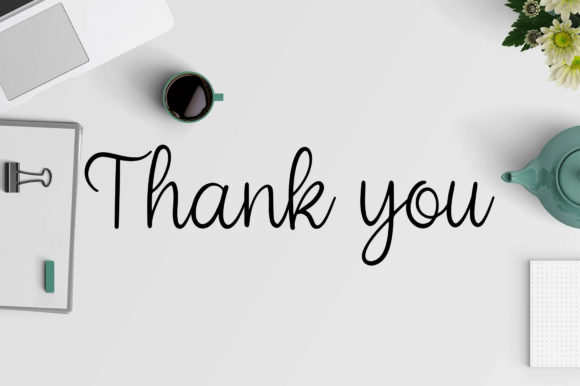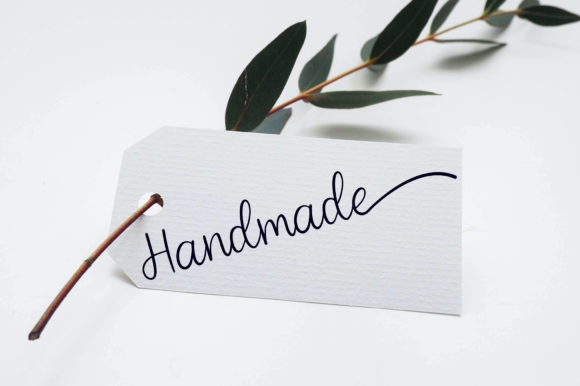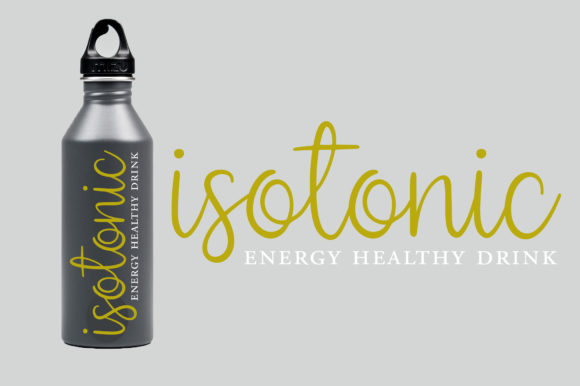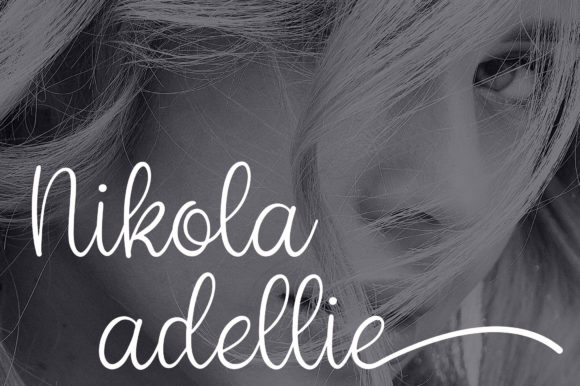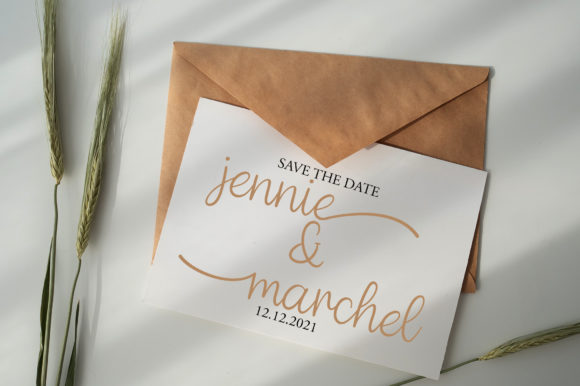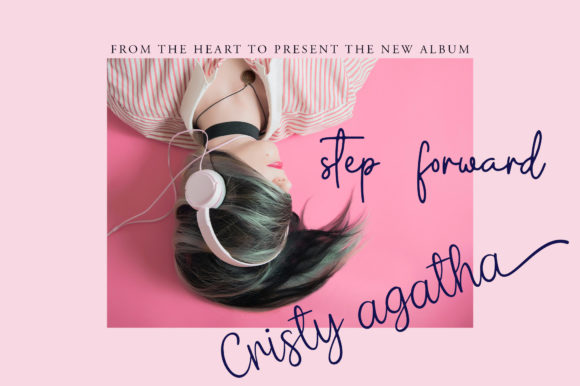
Amelinda Font
About Amelinda Font
Amelinda an equally sophisticated and bold handwritten font that’s great for delivering any message with confidence, authenticity and charm. Amelinda is PUA encoded which means you can access all of the glyphs and swashes with ease!